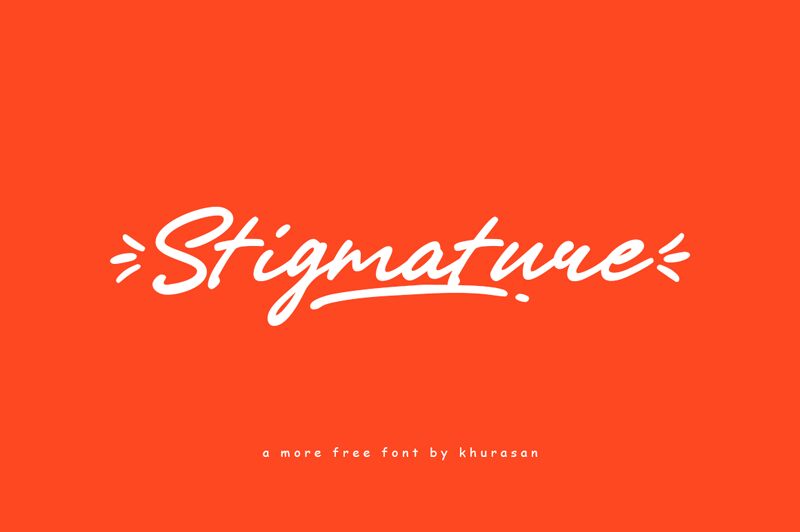
Stigmature
Stigmature, a captivating handwritten signature font by Khurasan, adds a touch of elegance and sophistication to any project. With its semi-light weight and semi-expanded width, this font effortlessly exudes a sense of grace and fluidity. Perfect for wedding invitations, luxury branding, or high-end fashion magazines, Stigmature lends an air of exclusivity to your designs. Its refined strokes and curvaceous lines create a visually stunning experience that captures attention instantly. Infuse your projects with the allure of Stigmature and let its distinctive charm leave an indelible mark on your audience's imagination.